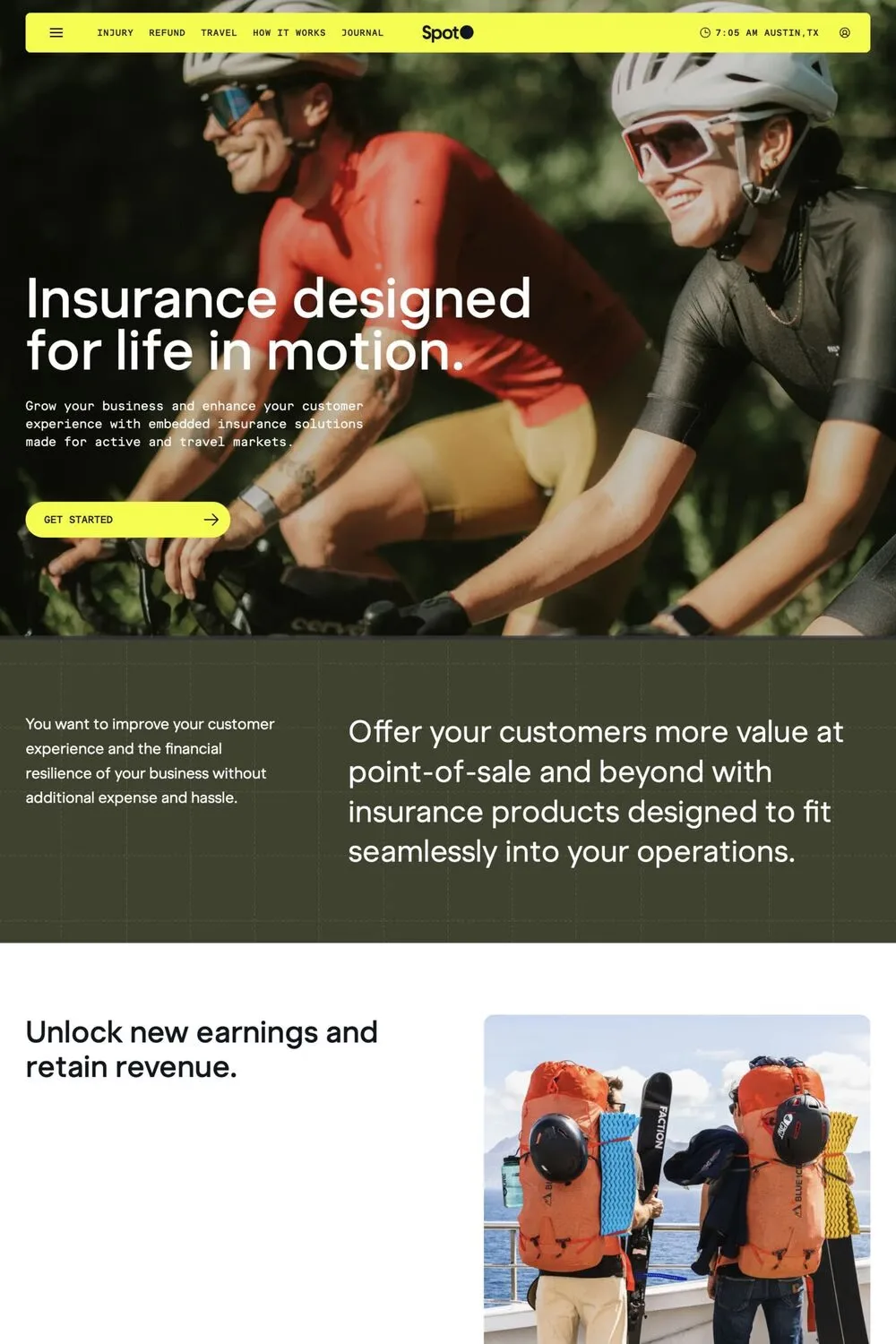
Raptor is a display typeface from Superior Type.
Raptor V3 features „classic“ ends of characters and connections. Most noticeable in A, M, N, V, W, X and many Greek and Cyrillic letterforms (with language support for Belarusian, Romanian and Vietnamese). All Raptor versions (V1—V3) have a pervasive set of icons, arrows, circled numbers, roman numerals and surprise illustrations (dinosaur egg included!). We can be pretty sure that raptors were a pretty fast species. The same can be said about this geometric sans-serif typeface.